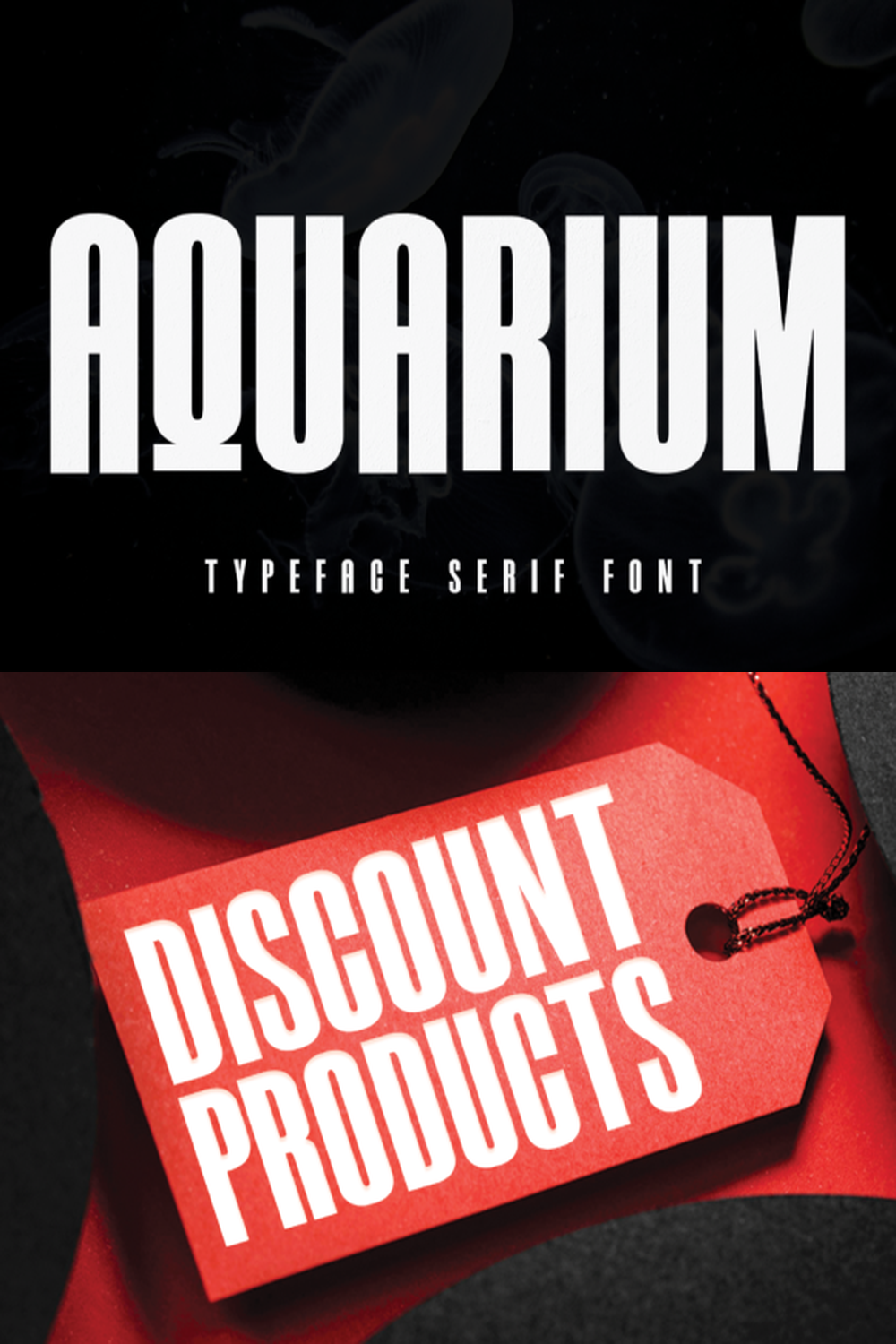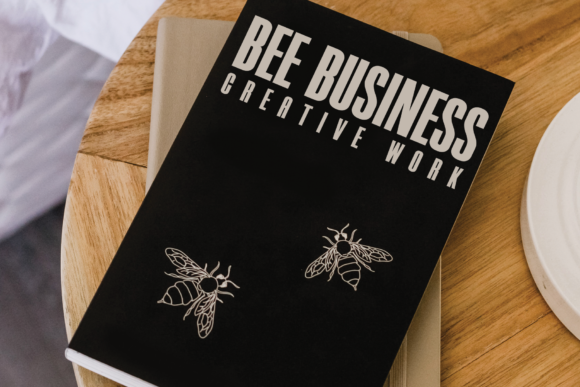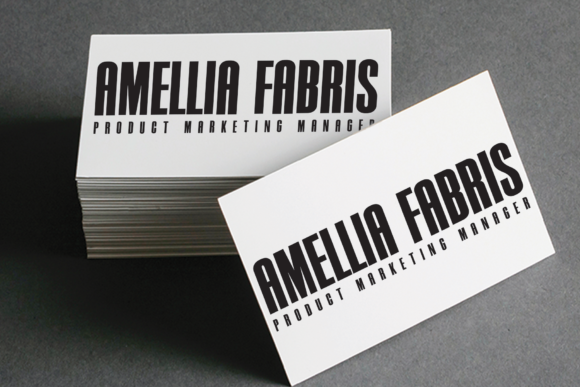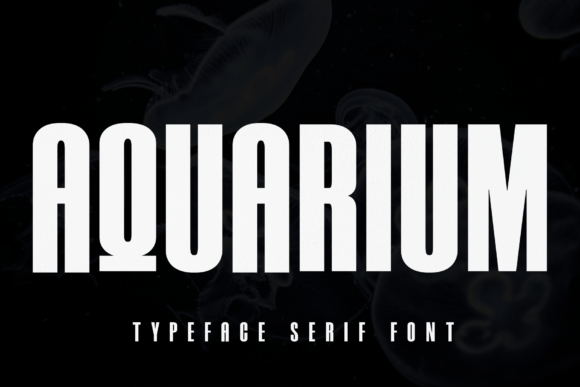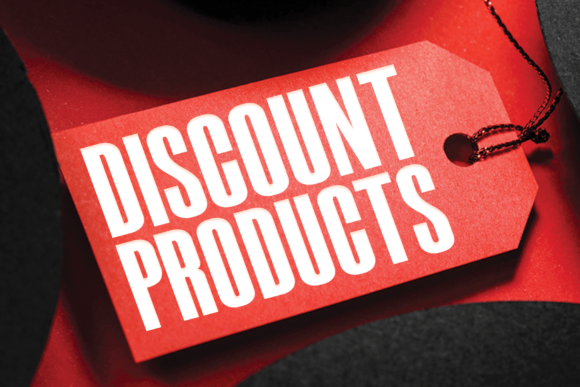
About the Aquarium Font
The wait is over! The incredible Aquarium Font is now available for your design toolkit. Aquarium is a bold and simple display font. Chunky lettered and natural, this font is incredibly versatile, matching each of your creative ideas!
Aquarium Font Usage Examples